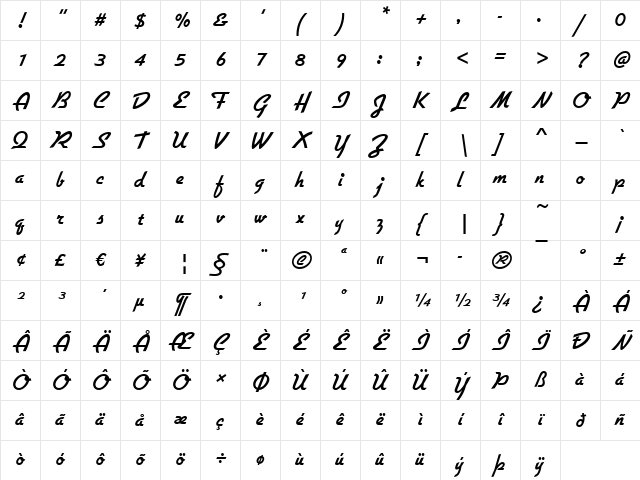
Complete Giulio Bold glyph index. Displaying only characters natively supported by Giulio Bold font.
Giulio is a composed and adaptable typeface that performs quietly and consistently across a wide range of design contexts. Its bold stroke weight gives it real presence on the page.